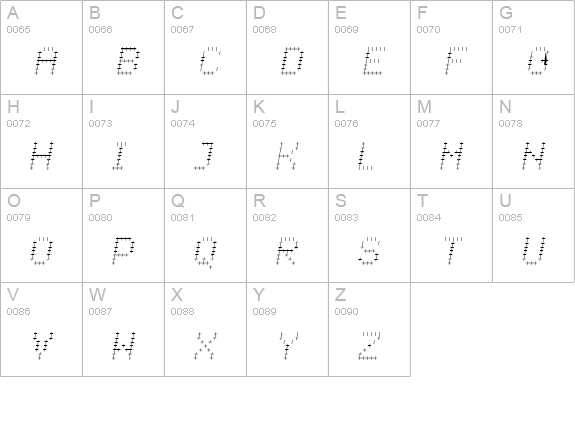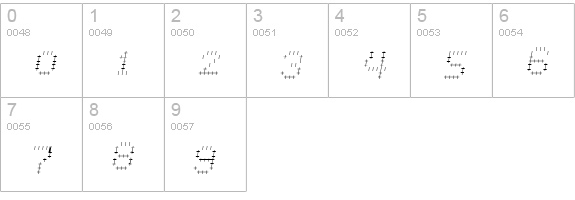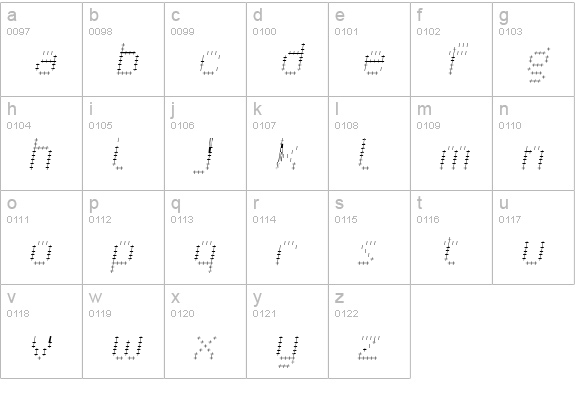
Crossover ExtraLightOblique font is a stunning typeface that exudes elegance and sophistication. Its delicate and slanted design adds a touch of modernity to any project, making it perfect for both professional and creative use. The sleek lines and unique curves of this font make it stand out from the crowd, giving your designs a sleek and contemporary edge. The best part? Crossover ExtraLightOblique font is completely free to download at FontsMarket.com. Now you can elevate your projects with this stylish font without breaking the bank. Whether you're designing a website, creating promotional materials, or crafting a logo, Crossover ExtraLightOblique font is sure to make a lasting impression. Download it today and take your designs to the next level!